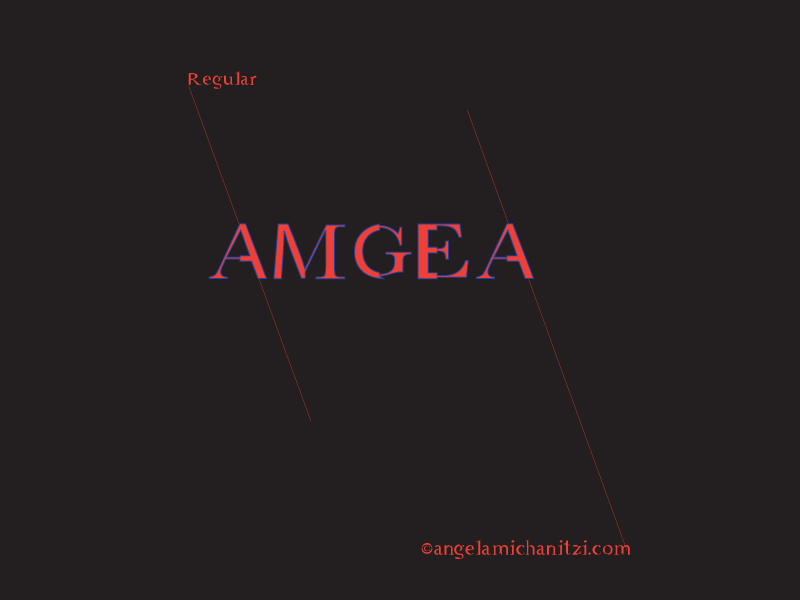
Font name: | AMGaea |
Author: | Angela Michanitzi |
Note by Angela Michanitzi | |
An experimental font that has a strong personality while still keeping readability at a good level. |